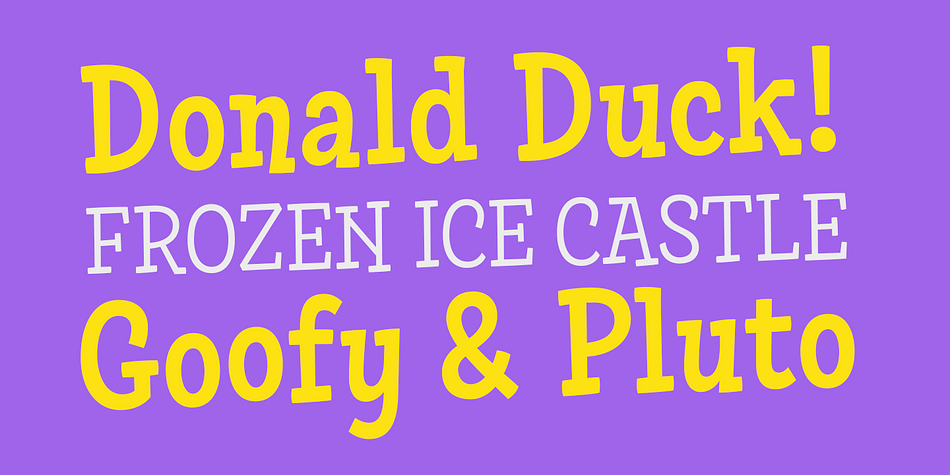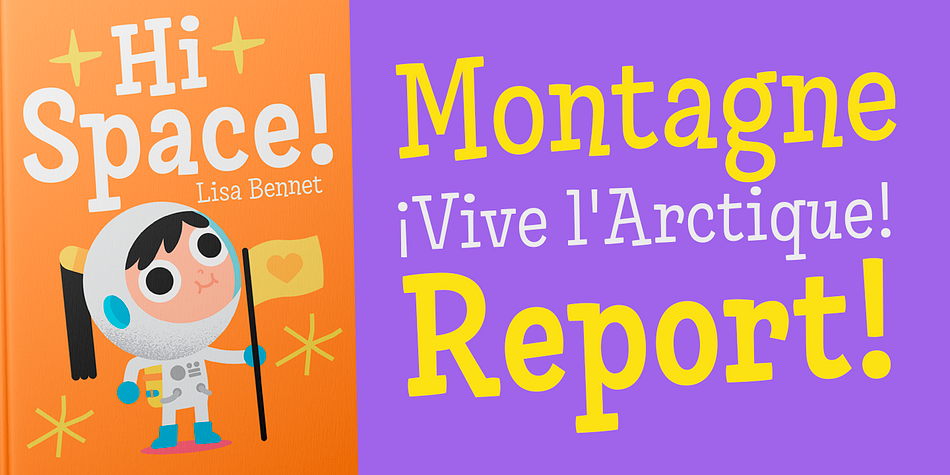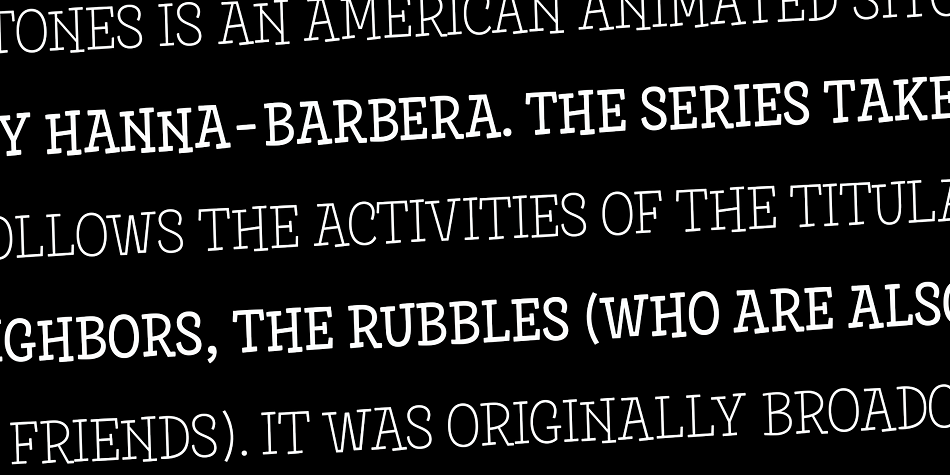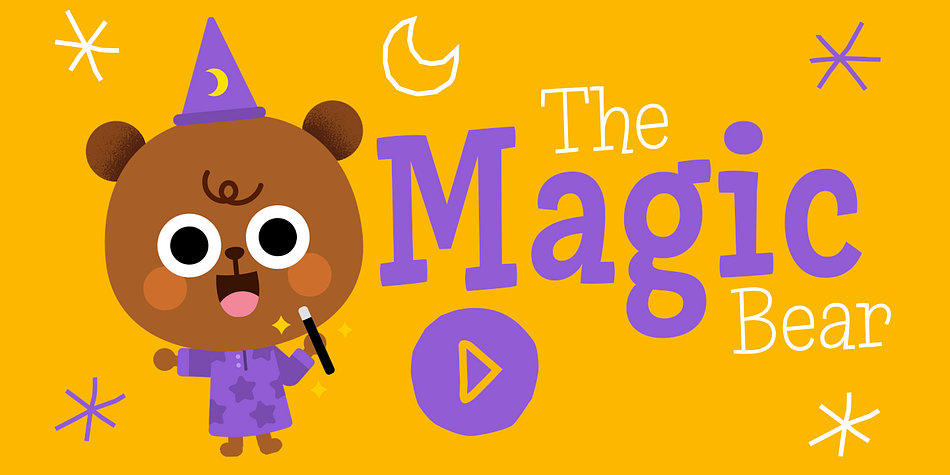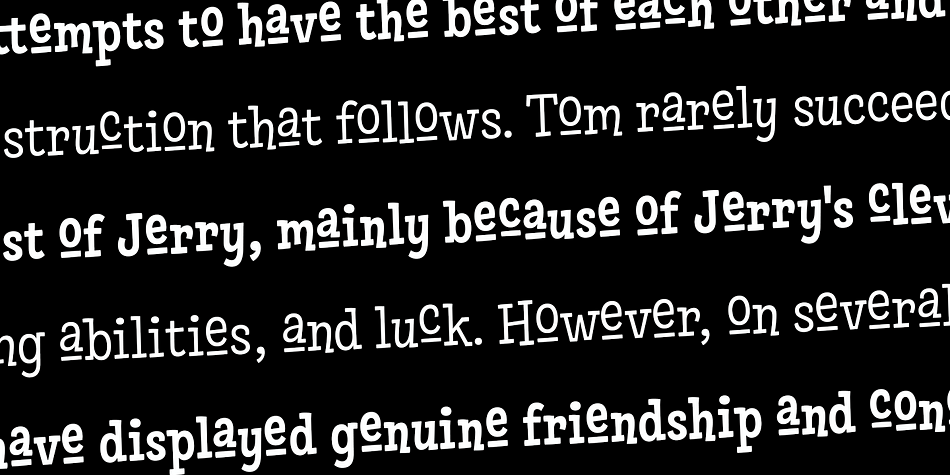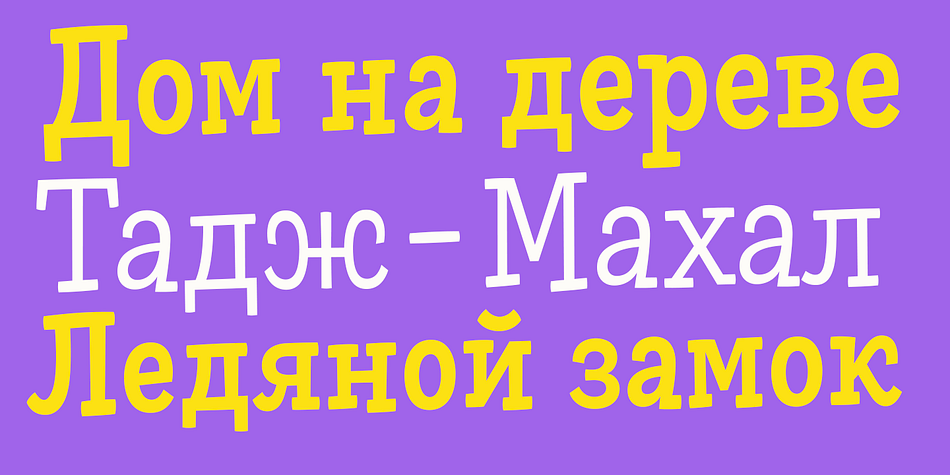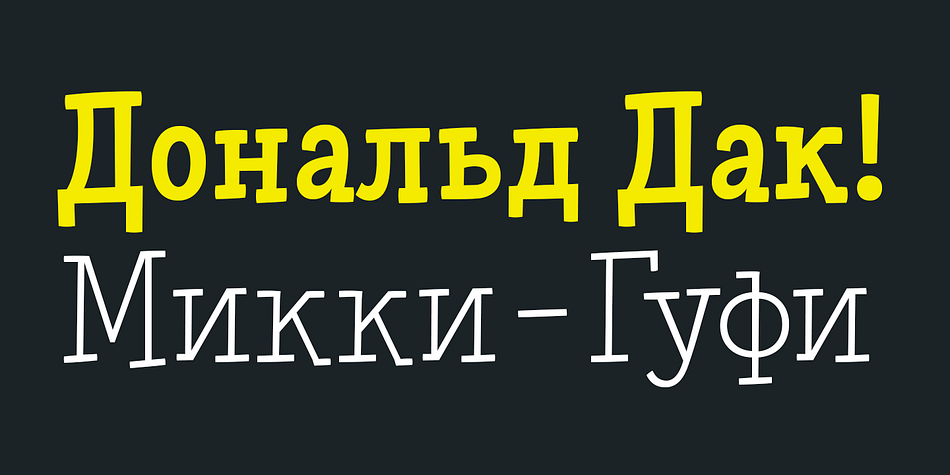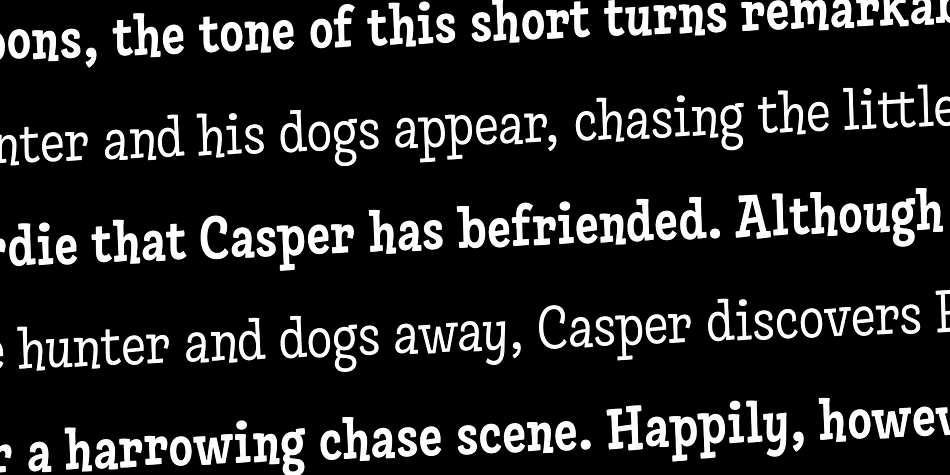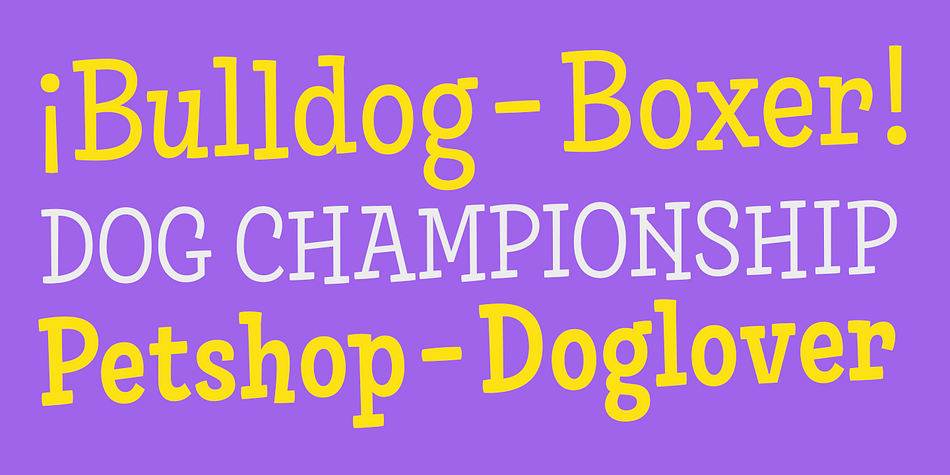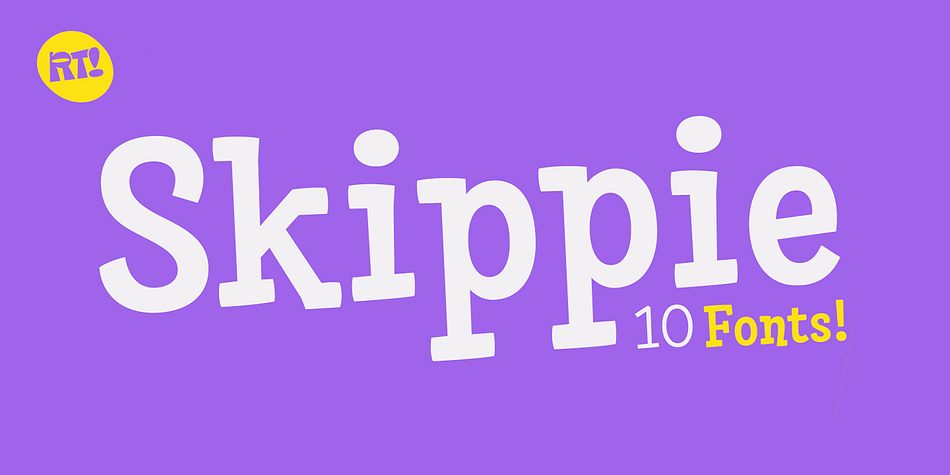
Designed by Andrey Kudryavtsev, Rodrigo Salas and Bruno Jara, Skippie is a multiple classification font family. This typeface has ten styles and was published by Rodrigo Typo.
A typeface specially designed for children’s titles,
contains different weights from Thin to DemiBold, with extras
with Dingbats and many Alternatives.